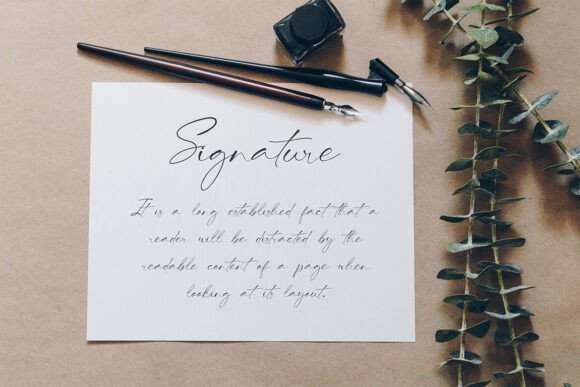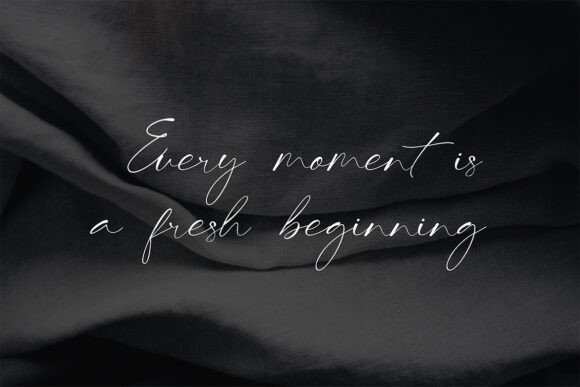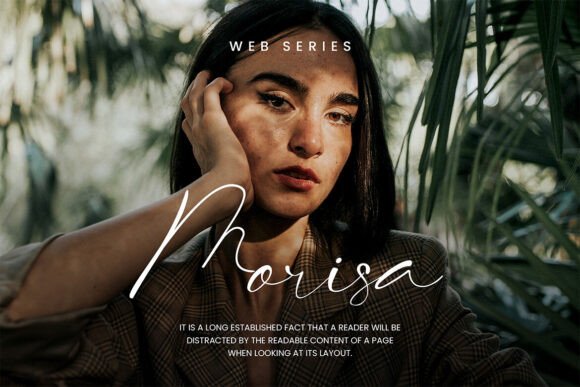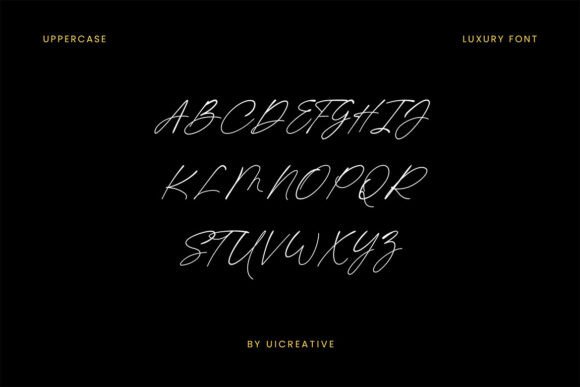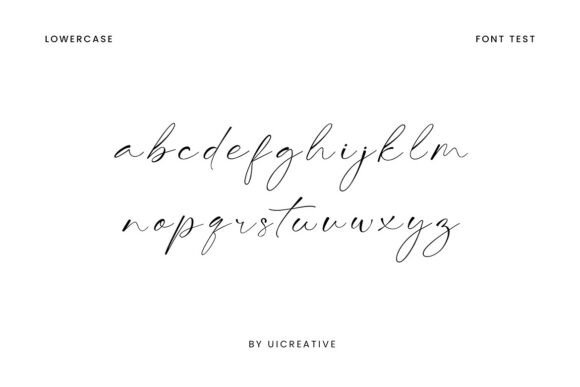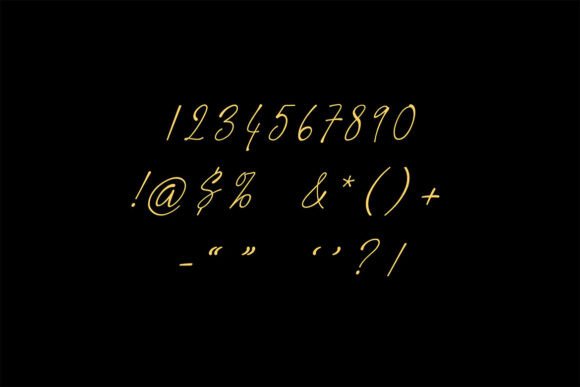
Introducing Beastie Signature: A Beautifully Script Font for Modern Design
In the world of typography, a signature font can make all the difference in creating a lasting impression. If you’re a designer, craftsperson, or simply someone who appreciates beautiful typography, you’ll love the Beastie Signature font. This modern display font exudes elegance, class, and style, making it perfect for a wide range of projects.
What is Beastie Signature Font?
Beastie Signature is a beautifully script font that boasts a unique blend of modernity and sophistication. Its elegant strokes and refined lines make it an excellent choice for designers and crafters looking to add a touch of luxury to their work. The font’s versatility allows it to be used in various contexts, from signature and stationery to logo design, wedding typography, and more.
Key Features of Beastie Signature Font
- Elegant and Classy Design: Beastie Signature font features a modern display design that feels both elegant and classy, making it perfect for high-end branding and design projects.
- Versatile and Adaptable: This font is suitable for a wide range of projects, including signature, stationery, logo, wedding, typography quotes, magazine or book covers, website headers, branding, and more.
- Masculine and Feminine Qualities: Beastie Signature font displays both masculine and feminine qualities, making it an excellent choice for fashion-related branding or editorial design.
- Easy to Read and Recognize: The font’s clear and refined lines ensure that it’s easy to read and recognize, even at smaller sizes.
Use Cases for Beastie Signature Font
Beastie Signature font is an excellent choice for various design projects, including:
- Signature and Stationery: Create elegant and sophisticated stationery, including business cards, letterheads, and envelopes.
- Logo Design: Use Beastie Signature font to create a unique and memorable logo for your brand or business.
- Wedding Typography: Add a touch of elegance to your wedding invitations, programs, and other typography with this beautiful script font.
- Magazine or Book Covers: Use Beastie Signature font to create eye-catching magazine or book covers that exude sophistication and style.
- Website Headers: Elevate your website’s design with a elegant and modern font that grabs visitors’ attention.
- Fashion Branding: Beastie Signature font is perfect for fashion-related branding, including clothing labels, accessories, and beauty products.
Why Choose Beastie Signature Font?
With so many fonts available, why choose Beastie Signature? Here are a few reasons:
- Unique and Exclusive: Beastie Signature font offers a unique and exclusive design that’s sure to make your project stand out.
- High-Quality Design: The font is designed with high-quality craftsmanship, ensuring that it looks great in any context.
Beastie Signature font is an exceptional addition to any designer’s or crafter’s toolkit. Its elegant and classy design, versatility, and adaptability make it perfect for a wide range of projects. Whether you’re working on a fashion brand, wedding typography, or simply looking for a beautiful script font, Beastie Signature is an excellent choice. With its unique blend of modernity and sophistication, this font is sure to elevate your design and leave a lasting impression.